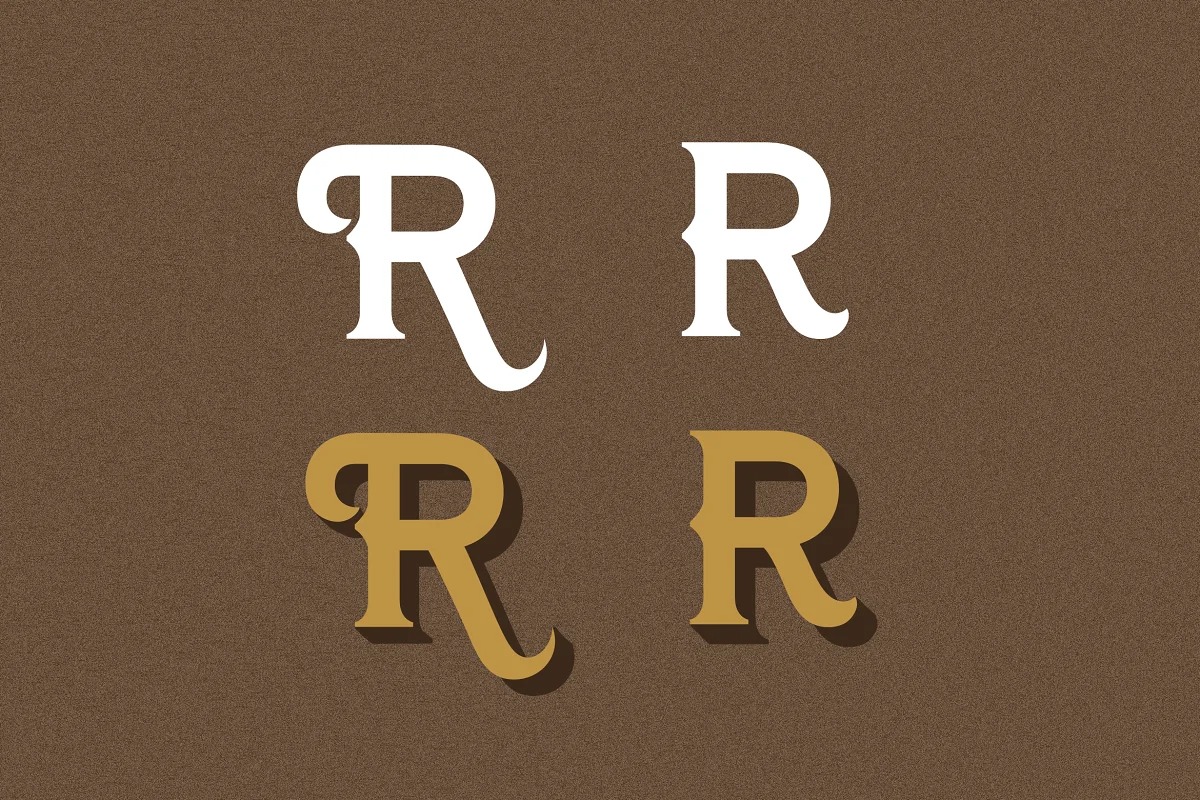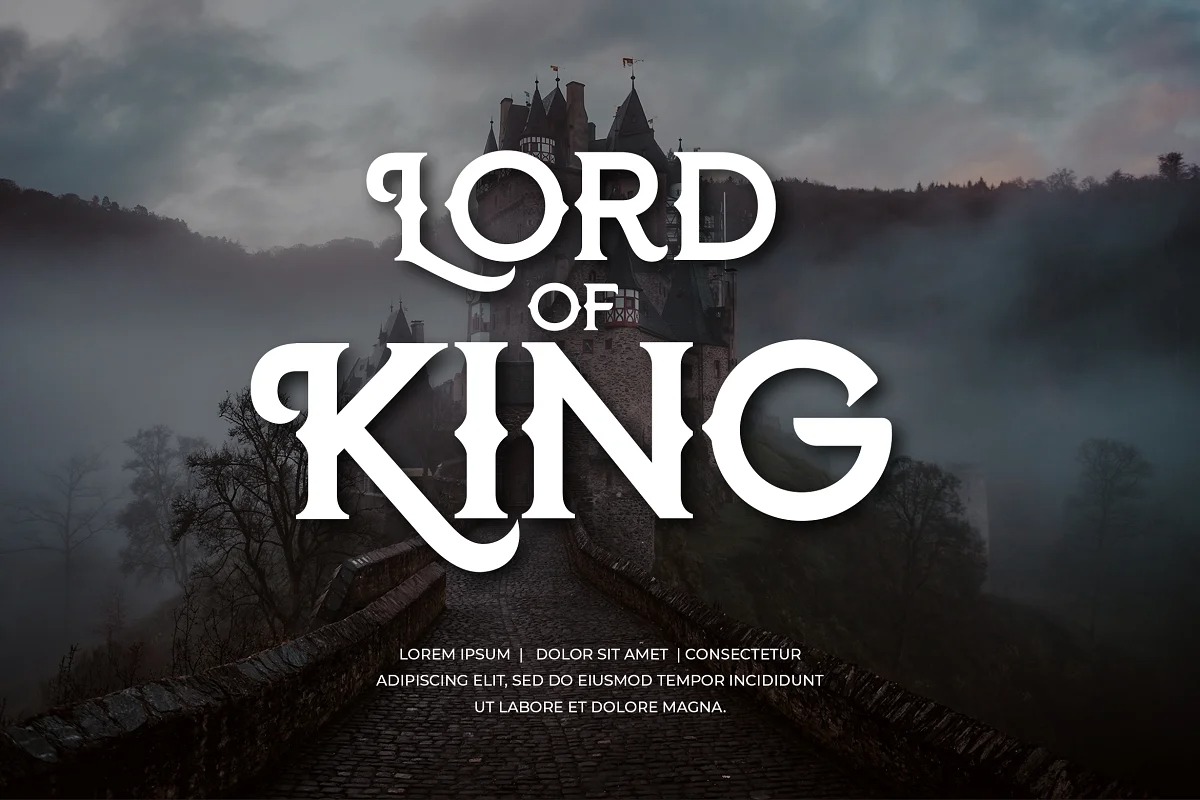
Dream Quacker Font
Dream Quacker Display Font
This font is perfect for your design needs and it was created by UICreative. It features uppercase letters and supports both standard and alternate characters. This font is perfect for fashion related branding or editorial design and displays both masculine and feminine qualities. Also you use this font on Logo & Label Design, Apparel Design, Music, Advertising, T-shirts, Brochures And more!